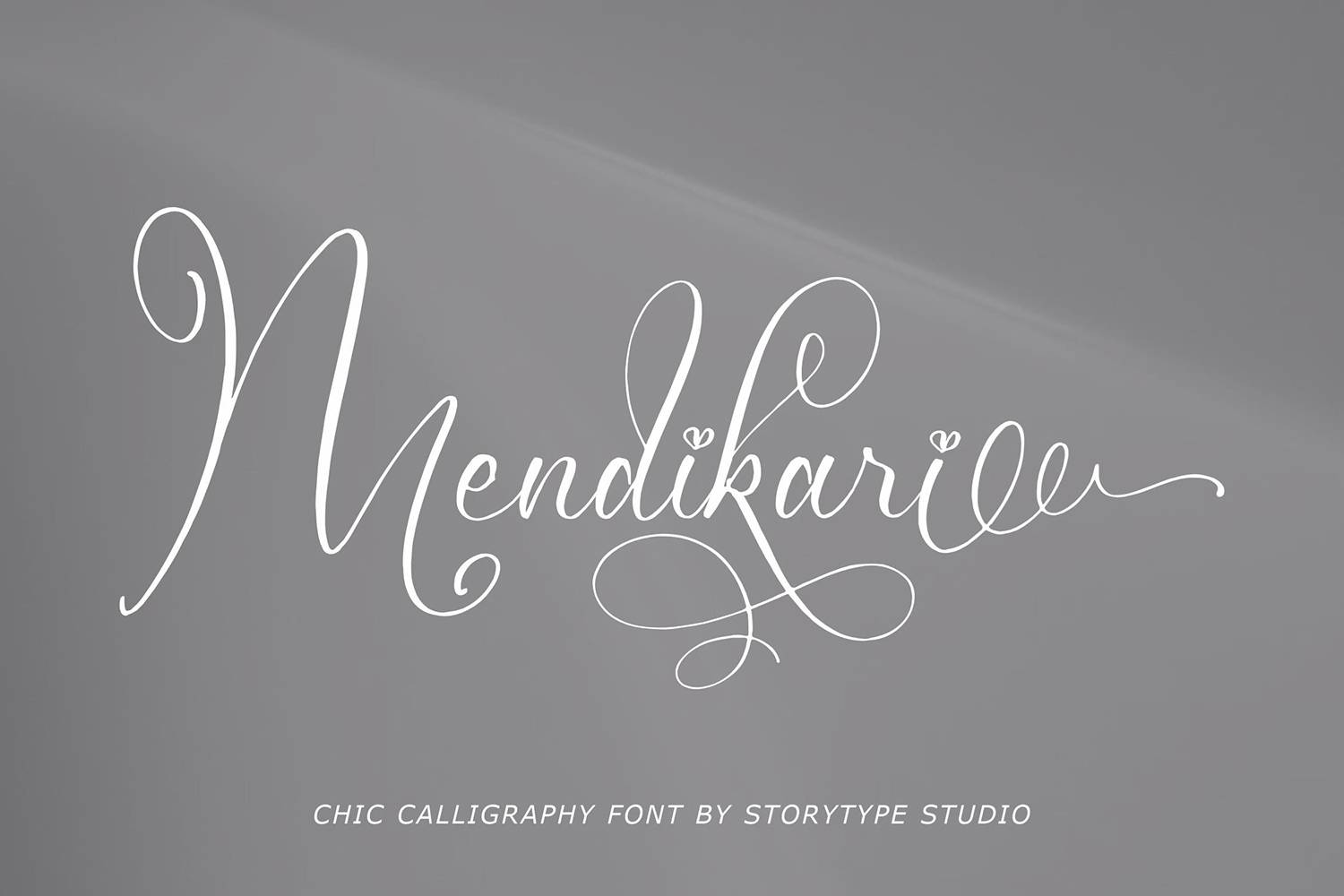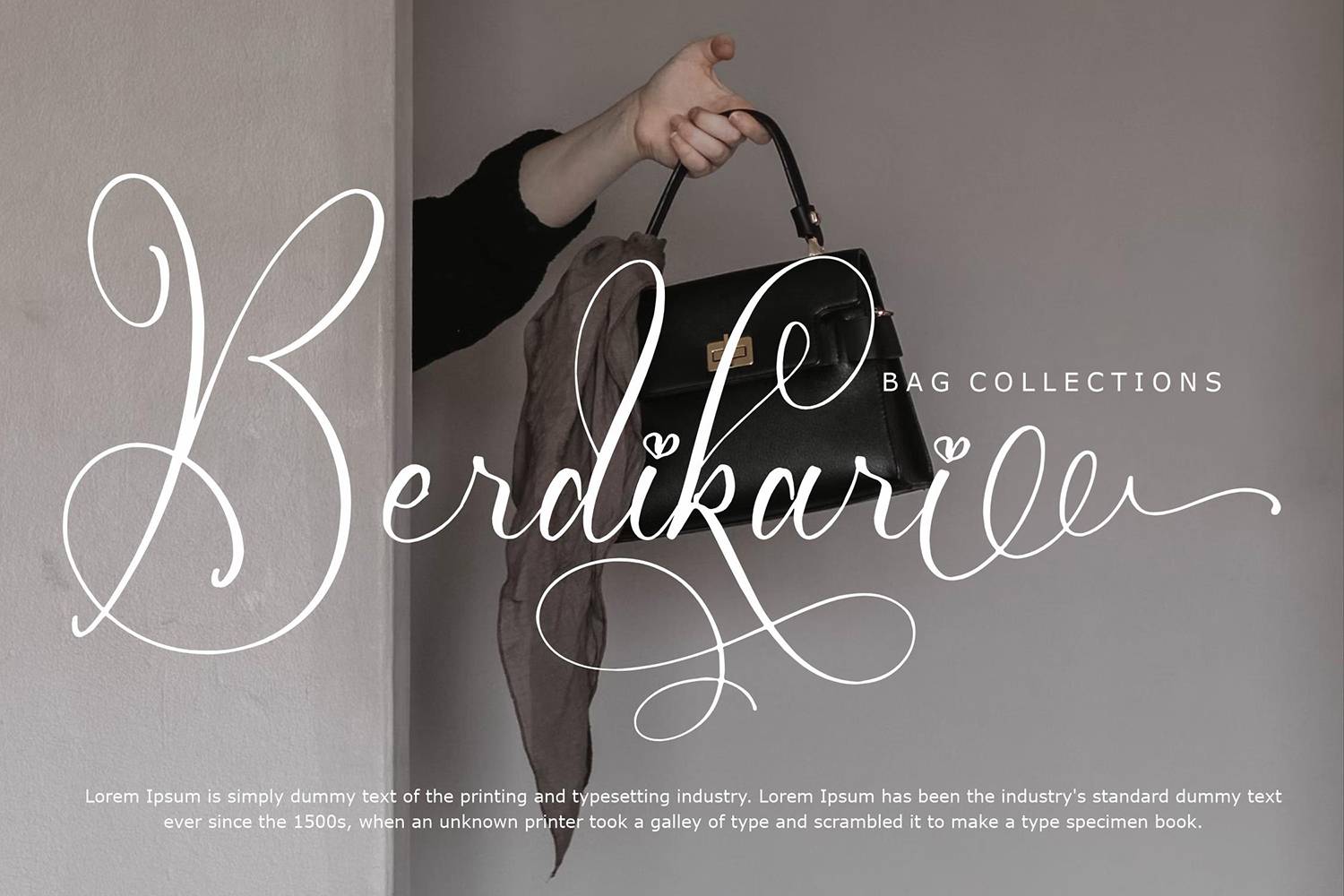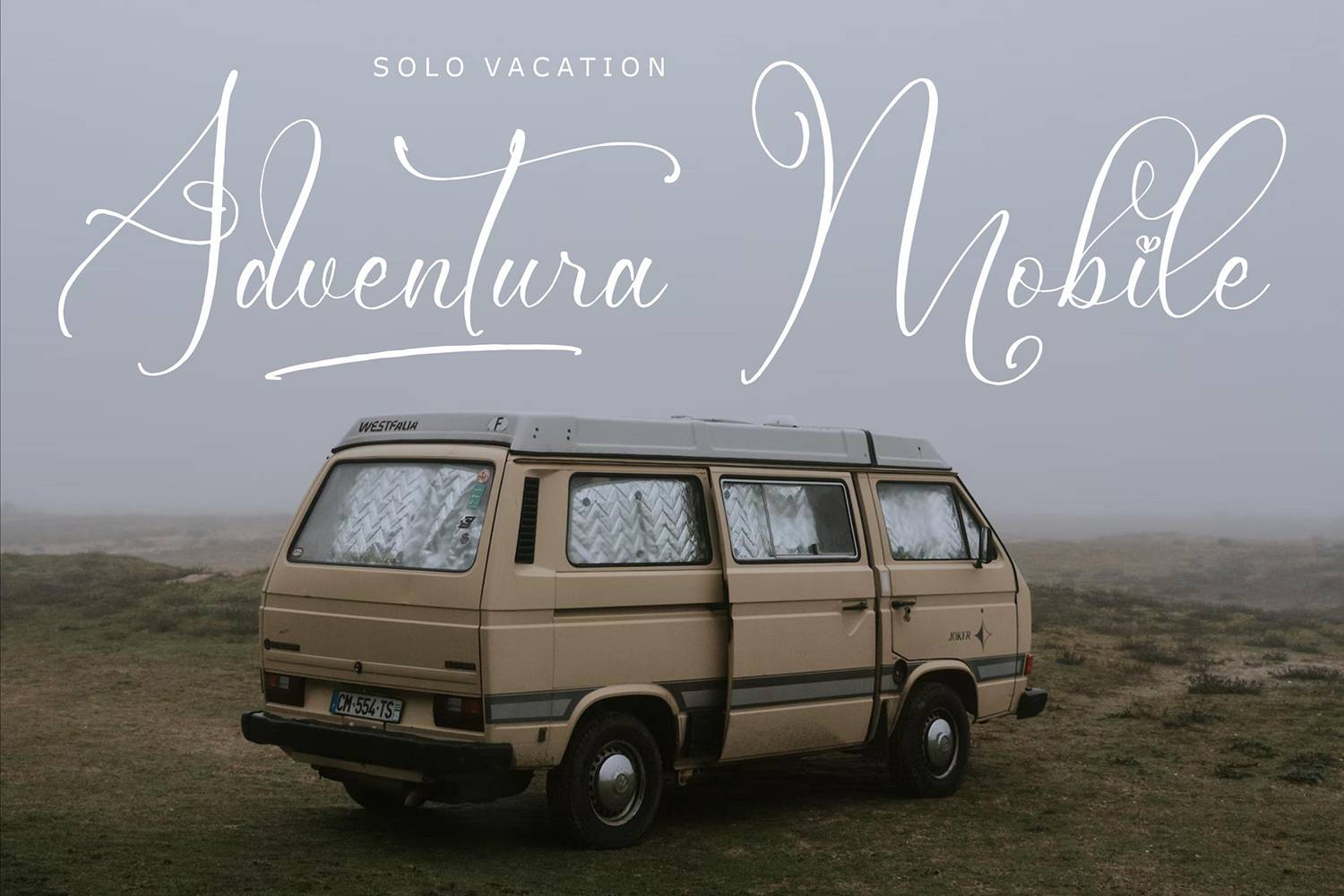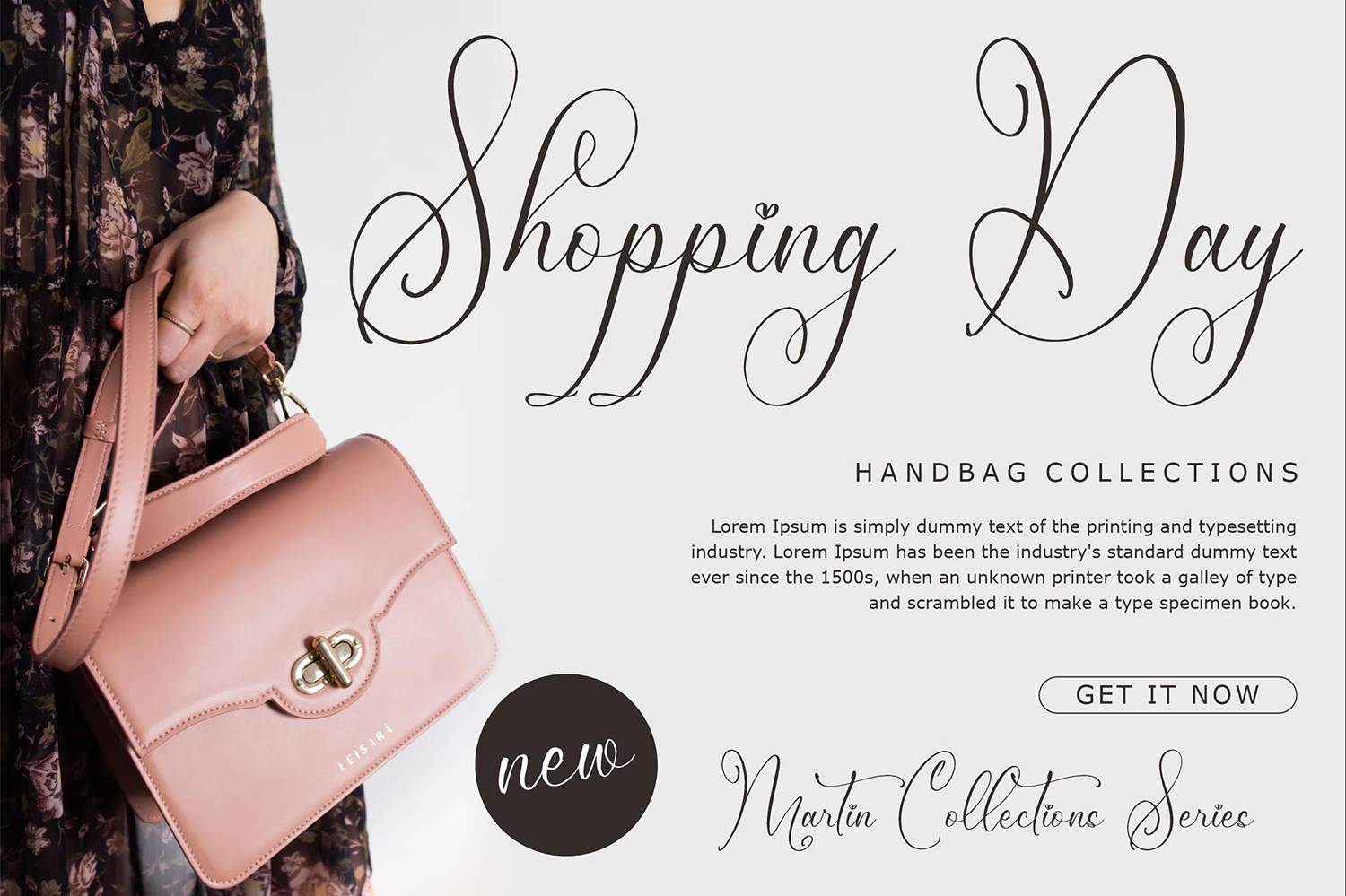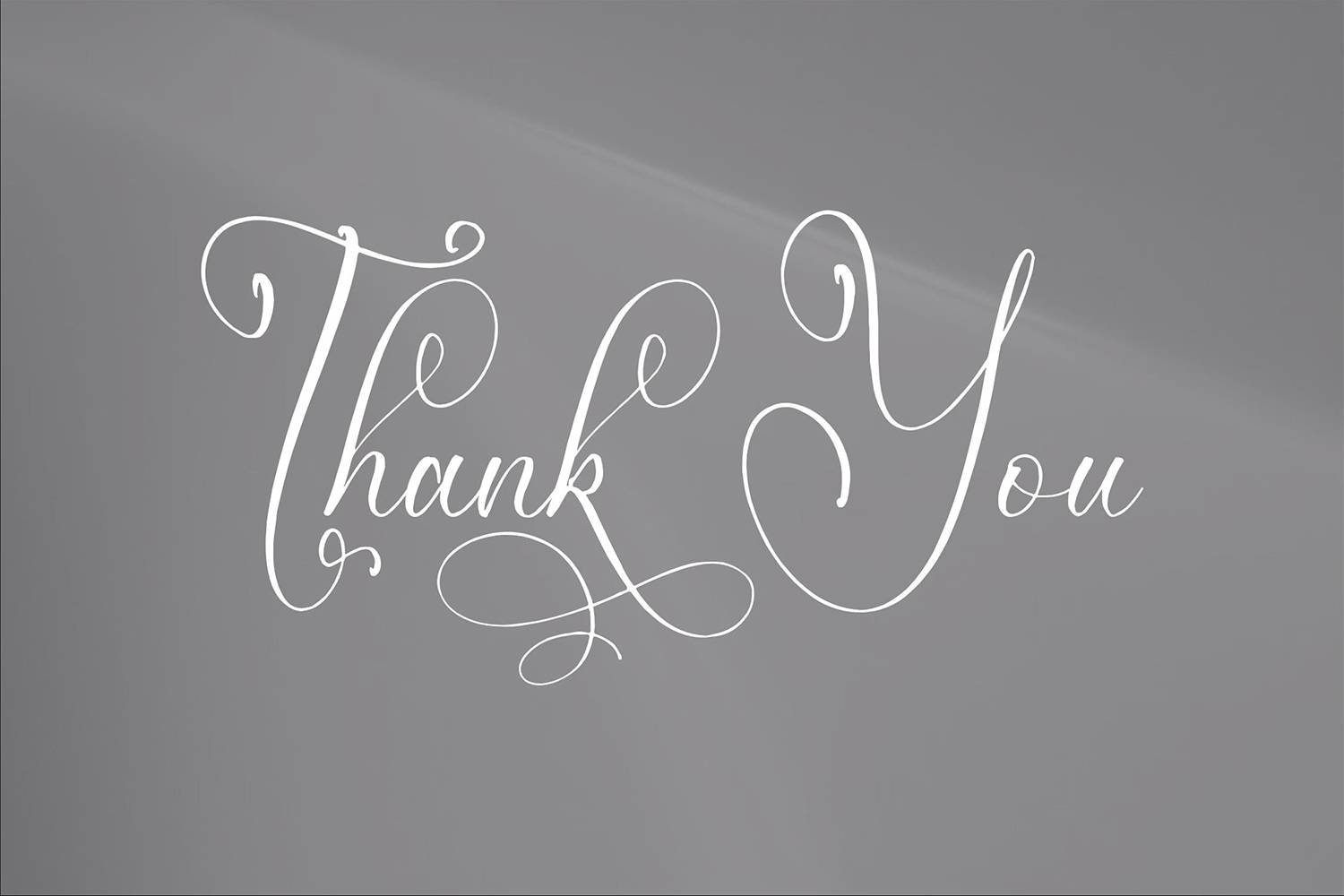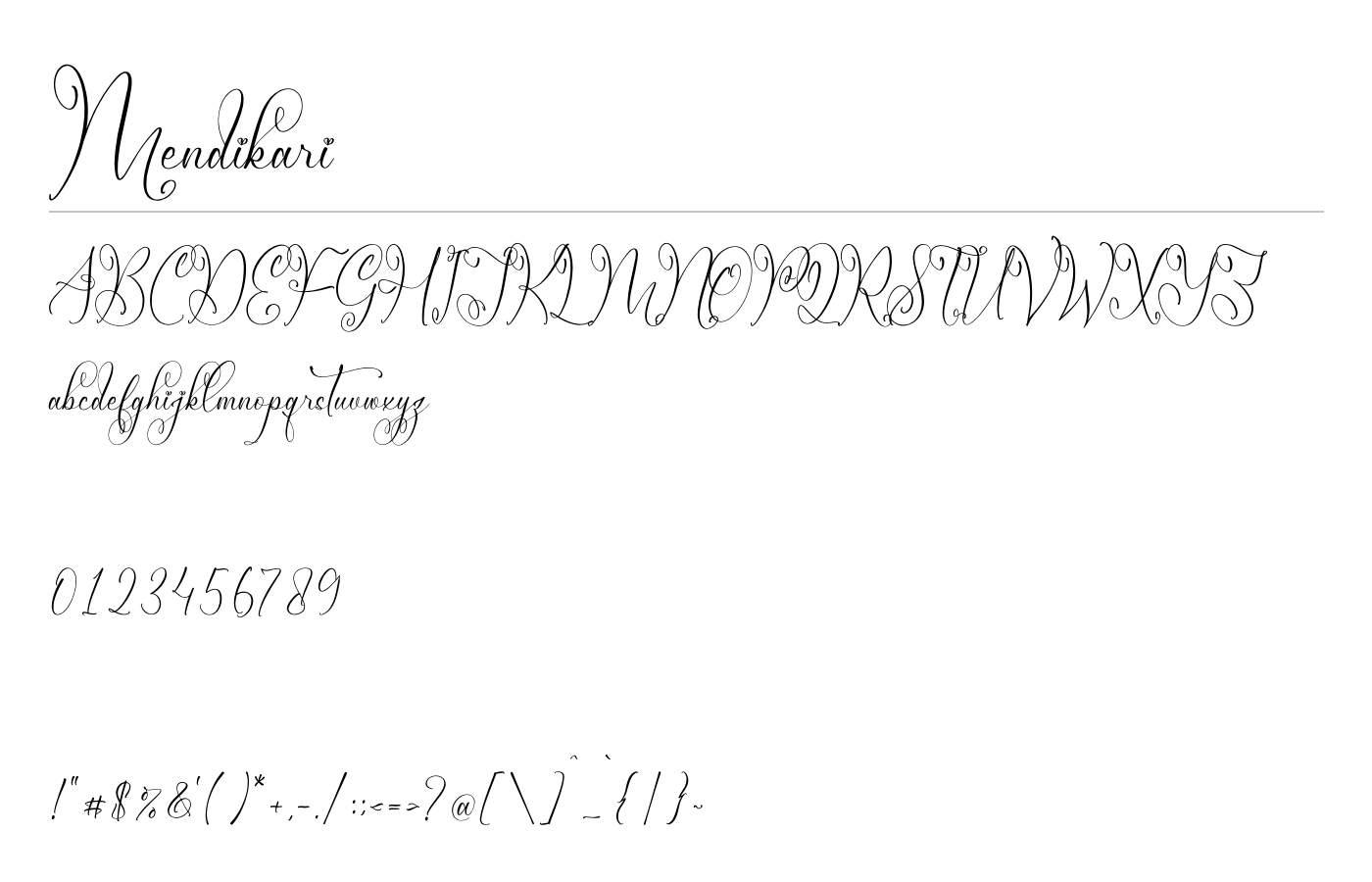
Mendikari is an elegant script font characterized by delicate, flowing strokes and ornamental swirls that give it a graceful, romantic feel. Its light weight and high-contrast lines make it perfect for sophisticated wedding invitations, luxury branding, or decorative headlines where a refined, artistic touch is desired. This font’s unique flourishes and stylish curves create a sense of delicate beauty, best suited to projects that need a personal, elegant charm.
Mendikari Font
About Mendikari Font